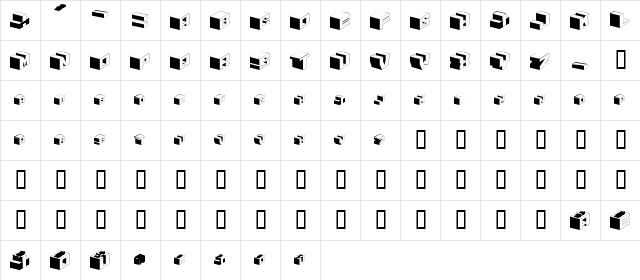
NewKids Normal
Design Context for NewKids Typeface
NewKids has an approachable, lighthearted character — its loose, expressive forms are well-suited to children's content, casual branding, and fun-first design.
Font Pairing: Pairs well with a rounded or humanist sans for body copy, maintaining the friendly tone without relying on NewKids to carry extended reading.
Pro Tip: Use NewKids at larger display sizes where its expressive character can land. Pair with a clean, simple sans for body copy to maintain readability.